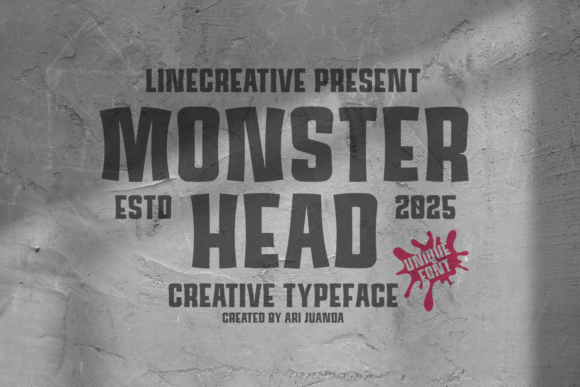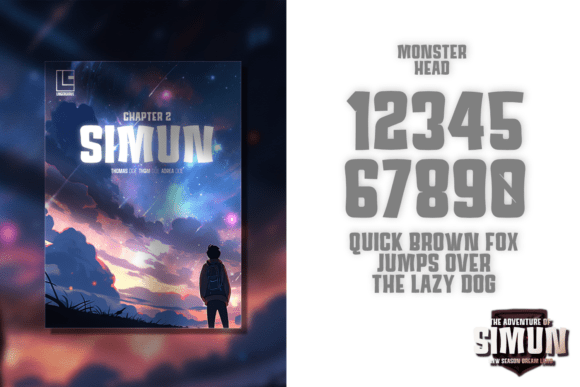
Monster Head Font
About the Monster Head Font
Let us introduce you to Monster Head Font, where timeless design meets modern craftsmanship. Monster Head Font is a unique typeface with a bold weight that gives a strong and sturdy impression. This font is inspired by sci-fi headlines, such as games, novels, posters and others. This font is also good for designing writing on clothes, logos, brands and others.
Monster Head Font’s bold weight makes it ideal for headlines, logos, and short impactful statements in posters or branding materials. It excels in applications requiring a strong, commanding presence, such as science fiction themed projects, video game titles, or edgy apparel designs. However, its weight and unique character make it less suitable for body text or user interfaces, where readability over extended lengths is crucial.
Pairing Monster Head with a clean sans-serif like Open Sans for body copy creates a strong contrast, balancing the boldness with legibility. For a more playful feel, consider pairing it with a rounded geometric sans-serif. A classic serif like Garamond can add sophistication if a more refined aesthetic is desired.
The overall personality of Monster Head Font is bold, powerful, and slightly rebellious; it projects confidence and a sense of futuristic energy. This makes it particularly effective for brands conveying strength, innovation, or a rebellious spirit.
Monster Head Font Usage Examples
Monster Head Font Example